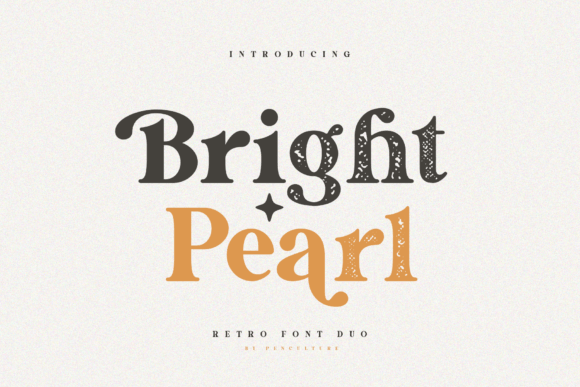
Introducing Bright Pearl Font, the epitome of elegance and sophistication in the world of typography. This retro serif font, created by the talented Pen Culture, is the perfect choice for designers and artists seeking to elevate their projects to new heights. With its clean and rough versions, Bright Pearl offers versatility that knows no bounds.
Unleash your creativity with Bright Pearl's outstanding stylistic alternate, a feature that sets this font apart from the rest. Whether you're working on a branding project, designing a book cover, or even experimenting with print on demand, this font will be your ultimate companion. Its timeless appeal and attention to detail will captivate your audience and leave a lasting impression.
Are you an interior designer looking for the perfect font to complement your projects? Look no further! Bright Pearl Font is specifically curated to meet the demands of the interior design industry. Its refined serifs and graceful curves add a touch of class and elegance to any design, making it the best font for interior design.
But that's not all – Bright Pearl Font is a true game-changer when it comes to versatility. Its compatibility with Cricut and other design software opens up a world of possibilities. Let your imagination run wild as you create stunning crafts, personalized gifts, and eye-catching merchandise that will leave everyone in awe.
What sets Bright Pearl Font apart is its ability to evoke emotions and tell stories. Its timeless aesthetic transports you to a bygone era, invoking a sense of nostalgia and charm. Every letter is meticulously crafted to evoke a feeling of warmth and familiarity, making it perfect for creating designs that resonate with your audience.
Don't settle for ordinary fonts when you can have the extraordinary. Bright Pearl Font is the missing piece that will transform your designs from good to extraordinary. Embrace its beauty, harness its versatility, and make a statement that leaves a lasting impression.